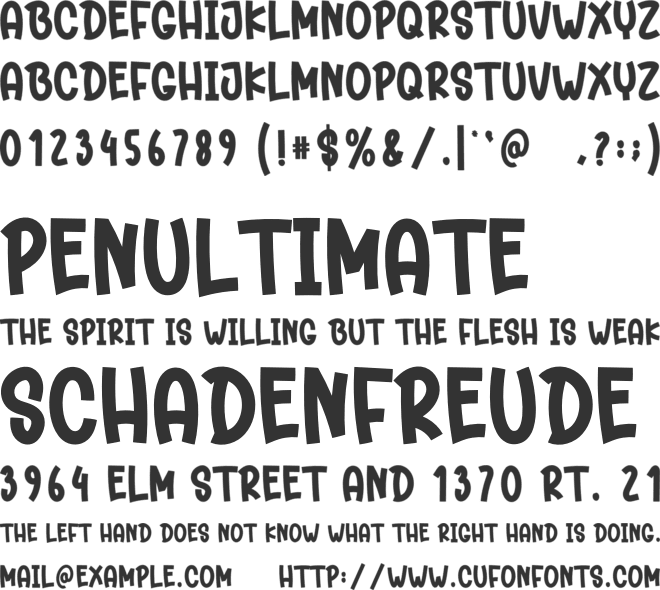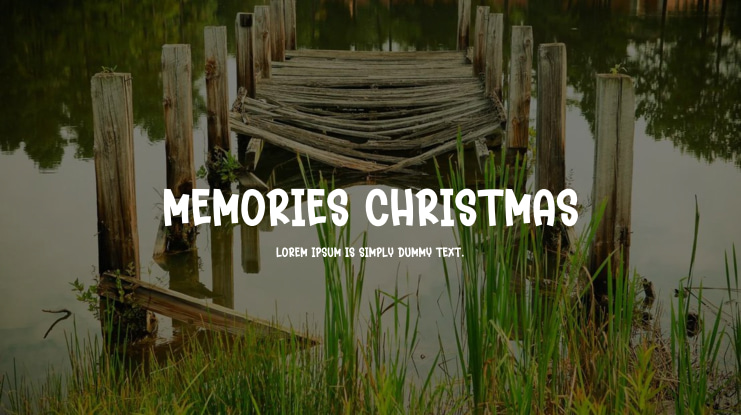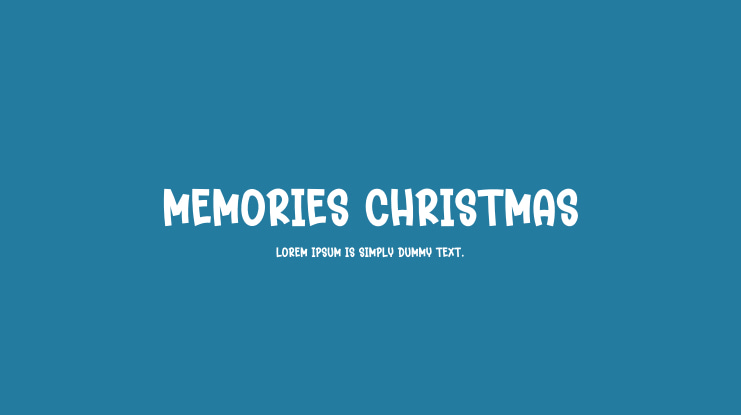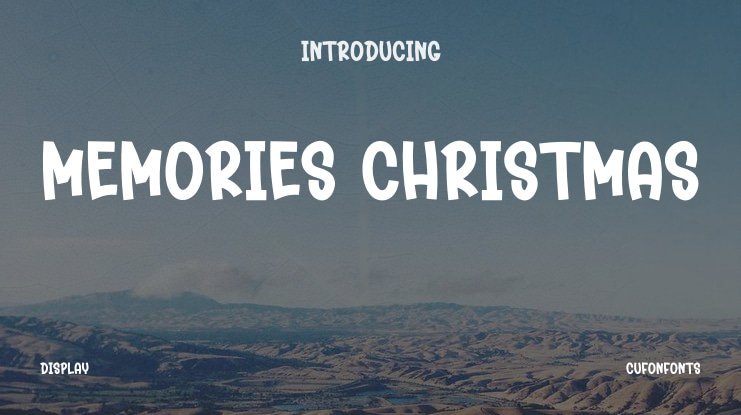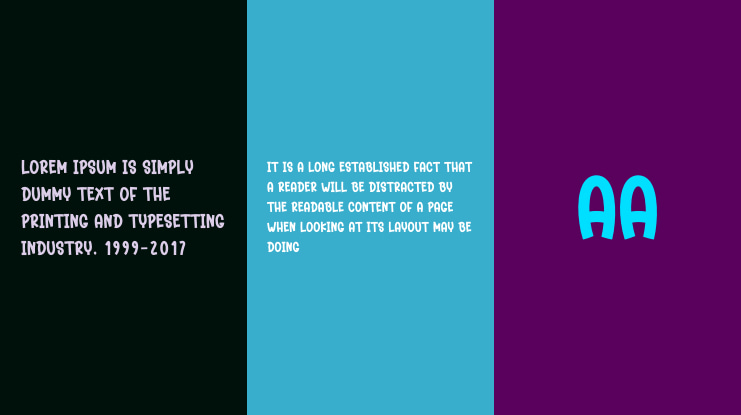
Memories Christmas Font
**Details** We offer specially crafted creative products designed to provide you with an extraordinary experience. Our products, featuring the latest style of lettering, are perfect for wall displays, wedding invitations, social media posts, logos, advertisements, product packaging, product designs, labels, photography, watermarks, invitations, stationery, and any project requiring elegant handwriting.